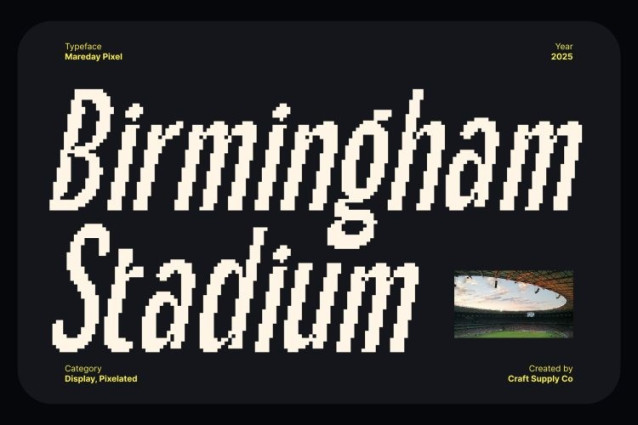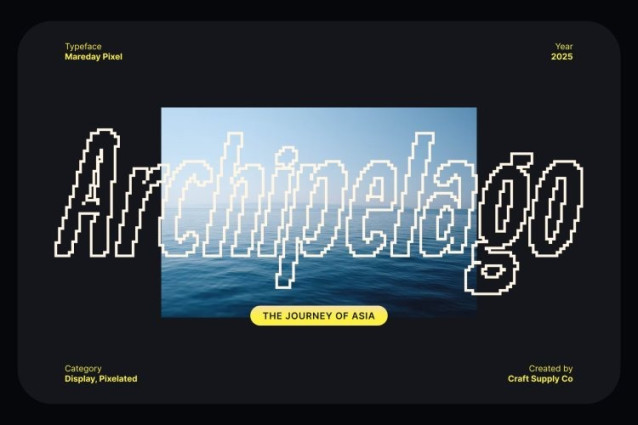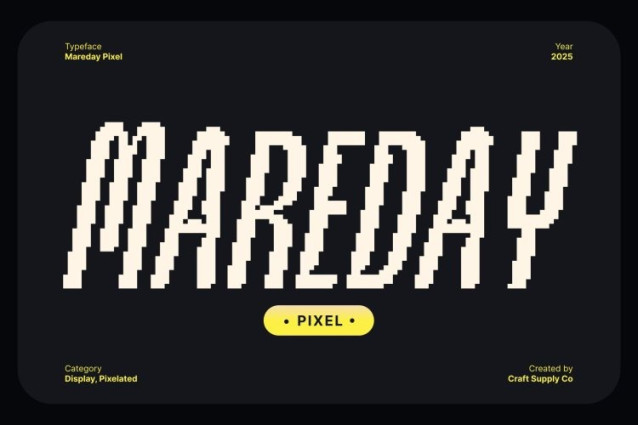
Mareday Pixel Font
Mareday Pixel Font is a compact and modern condensed sans serif font designed to deliver maximum impact in minimal space. With its pixel-inspired structure and clean geometric lines, this font combines digital aesthetics with contemporary design sensibility. Each letter is crafted for clarity and strength, making this font ideal for bold headlines and striking layouts.
Pixel Design Meets Modern Functionality
Infused with a distinctive pixel style, this font bridges the gap between retro digital art and modern typography. Its condensed form allows for efficient use of space, while the pixelated edges add a unique visual texture reminiscent of classic video games and digital screens. This fusion of nostalgia and precision creates a typeface that feels both futuristic and familiar.
Perfect for Posters, Branding, and Digital Art
This font shines in creative and technology driven projects posters, pixel design art, branding, and editorial layouts. Its sharp structure and balanced readability make it perfect for designs that demand attention while maintaining a clean, professional tone.
Bold, Efficient, and Digitally Inspired
This font embodies the strength of modern design with the charm of pixel craftsmanship. Its condensed shape, bold character, and digital flair make it a versatile tool for designers seeking power and precision in their typography. Use this font to give your designs a sleek, modern edge that’s perfectly aligned with the digital age.